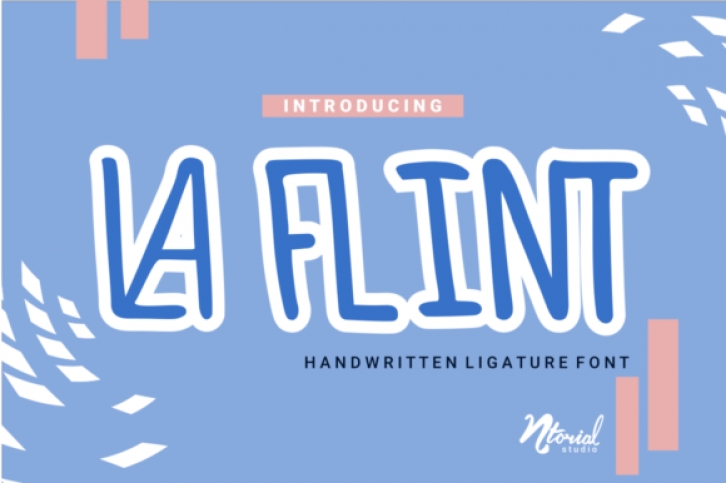
La Flint is a playful handwritten font with a unique style. Fall in love with its incredibly versatile style and use it to create spectacular designs!